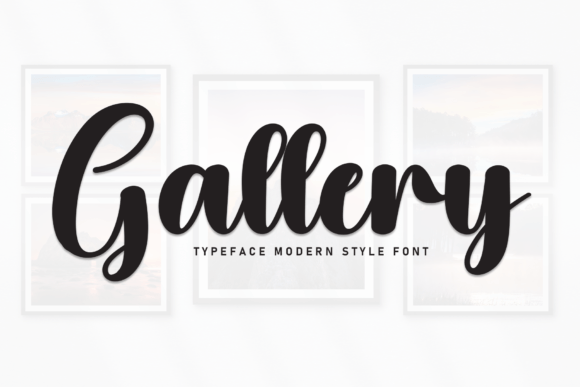
Feast your eyes on the Gallery Font, a script font family that is an absolute delight. Its flowing characters, meticulously crafted by the talented William Jhordy, have earned it the title of "Best Font for Headings Fashion". Prepare to be captivated by its charm and elegance as you explore the boundless creative possibilities it unlocks.
Gallery Font, with its graceful curves and lively personality, is the perfect choice for adding a touch of whimsy and playfulness to your designs. Let your imagination soar as you create captivating wedding invitations, charming greeting cards, or any project that calls for a dash of fun. It's a font that breathes life into your words, making them dance off the page with an irresistible allure.
But Gallery Font's allure extends far beyond its aesthetic appeal. It possesses a rare versatility that allows it to effortlessly adapt to a wide range of design styles and purposes. Whether you're creating branding for a fashion label, designing posters for a local theater, or simply adding a personal touch to your social media posts, Gallery Font will elevate your creations with its timeless beauty.
Step into a world where creativity knows no bounds with Gallery Font. Its enchanting characters are like tiny works of art, each one a testament to William Jhordy's artistry. Experience the joy of transforming ordinary words into captivating expressions that ignite the imagination and leave a lasting impression.
Join the countless designers and creatives who have succumbed to the allure of Gallery Font. Let its enchanting aura cast a spell on your projects, captivating your audience with its charm and grace. Unleash your creativity and allow Gallery Font to guide you on a journey of visual storytelling that will leave them breathless.